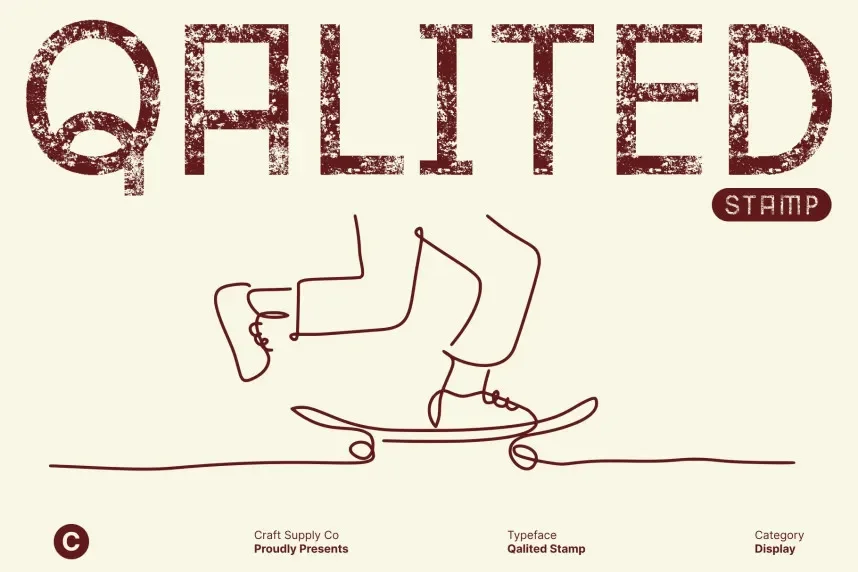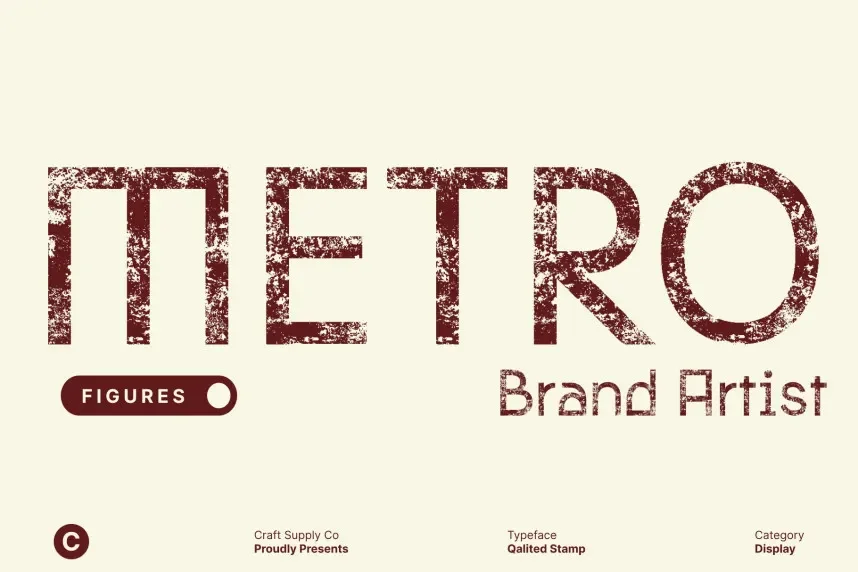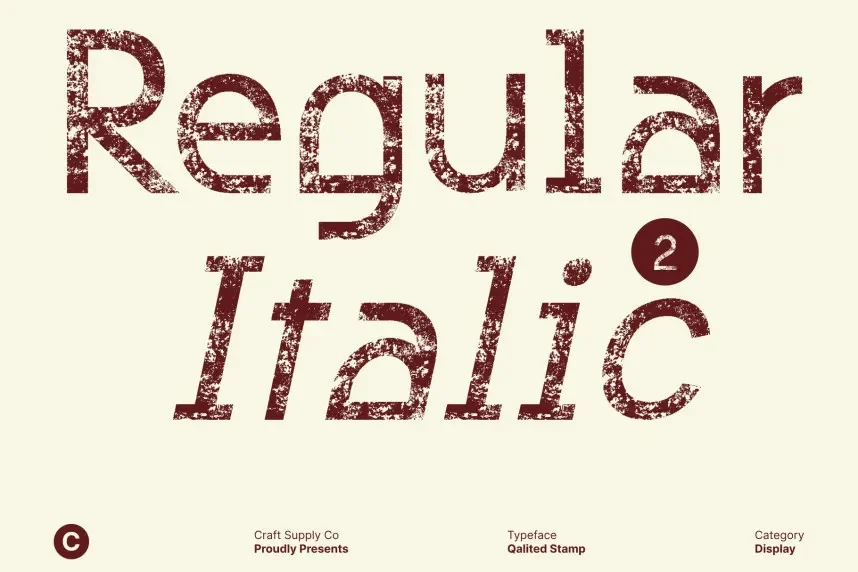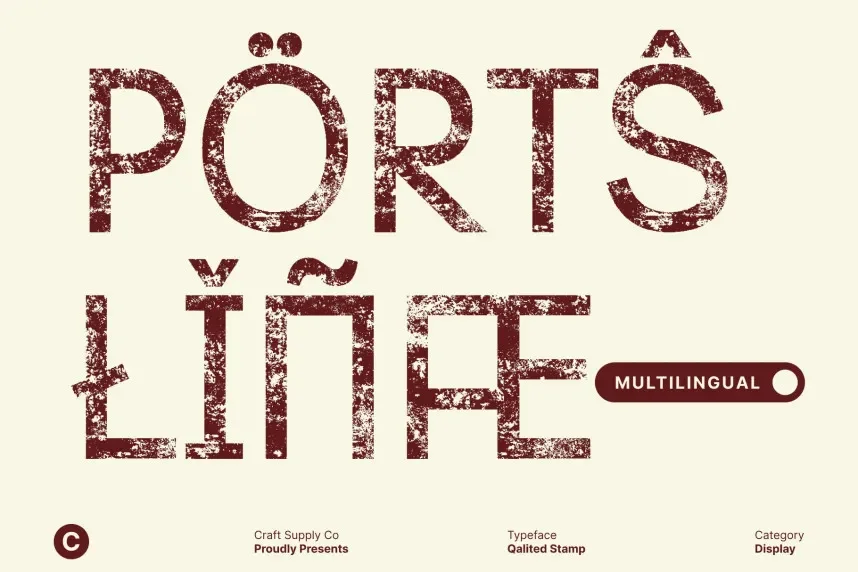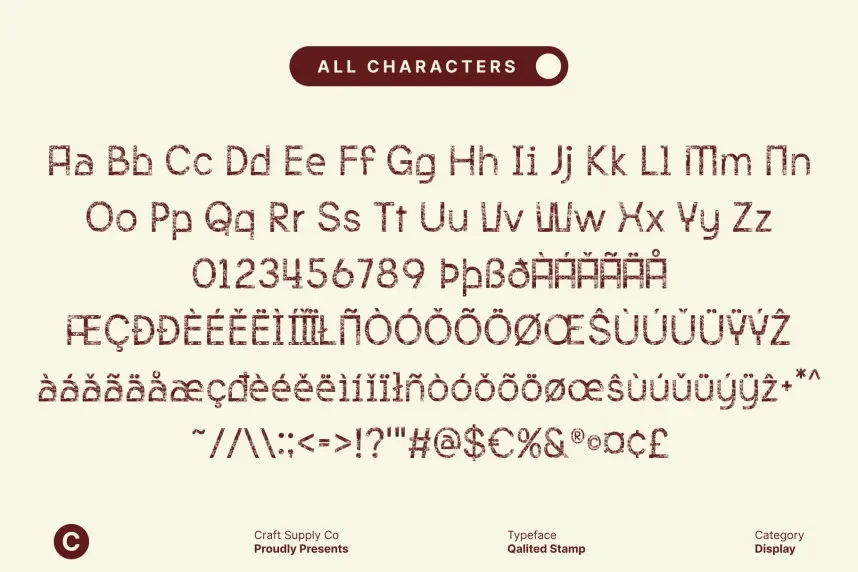
Qalited Stamp Font is a display typeface designed for designers who need rugged typography without losing readability. It addresses common problems where distressed fonts become unclear in logos, labels, and printed materials.
This stamp-style font uses thick strokes, rough contours, and irregular edges inspired by inked impressions. Letter spacing stays balanced, which supports readability at medium and large sizes. The font avoids fine details, making it reliable for bold headlines and branding text.